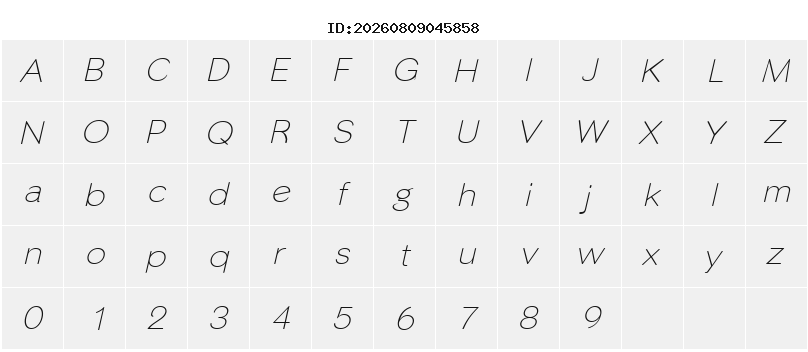
About Phinster Fine.ttf
Phinster Fine.ttf is a modern, elegant sans-serif font designed for ultimate readability and visual harmony. Perfect for branding, headlines, web design, and print materials.